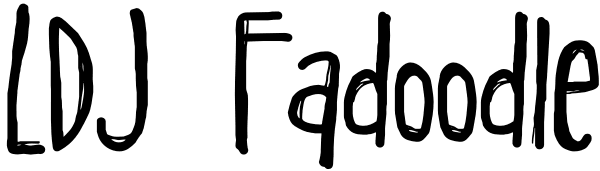
LDJ Fadoodle
Do a little digital doodling with this creative font. Download this font and create out of the ordinary lettering for scrapbooking and desktop publishing. It's the perfect choice for adding handwritten appeal.
LDJ Fadoodle Font